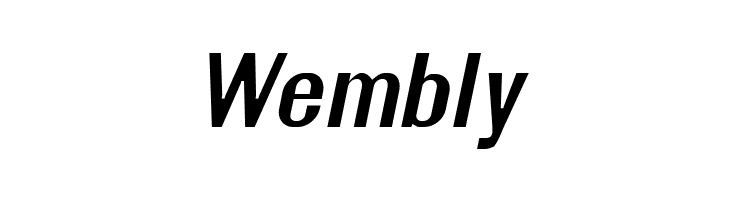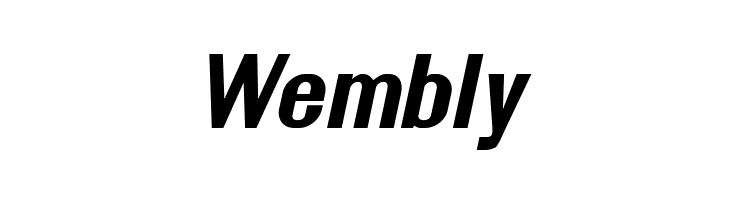
Daemonicus Condensed Italic Font
- Font: Daemonicus Condensed Italic
A dynamic, oblique font with bold, semi-condensed characters and medium contrast.